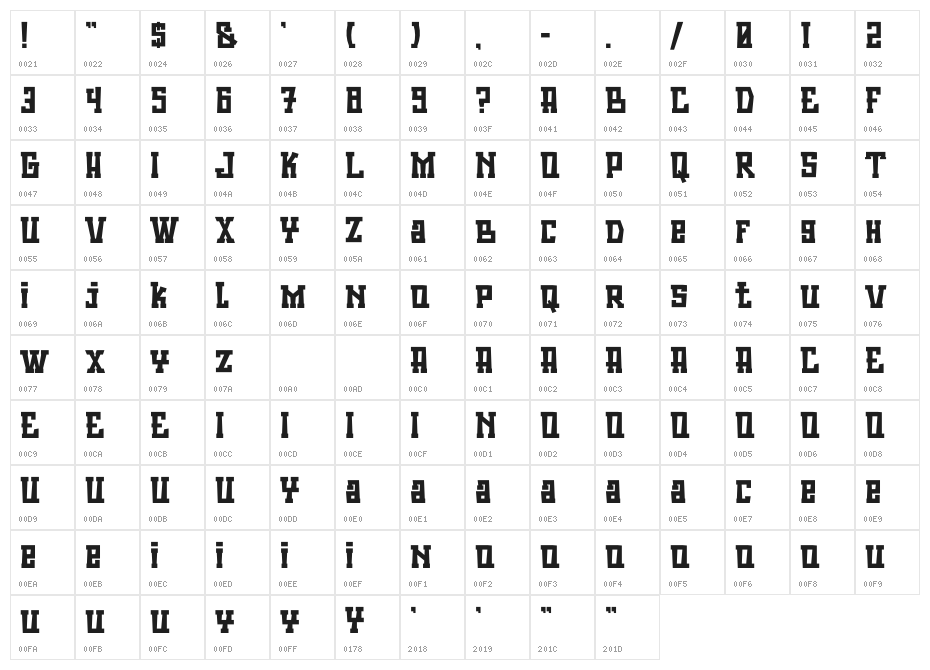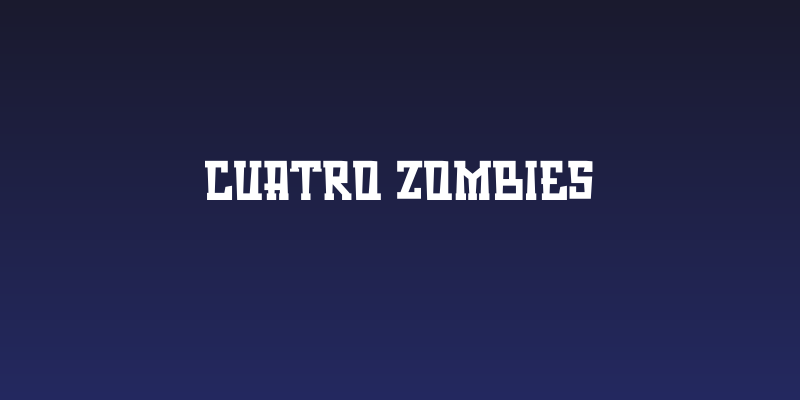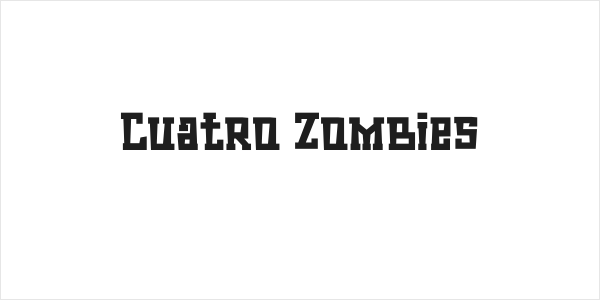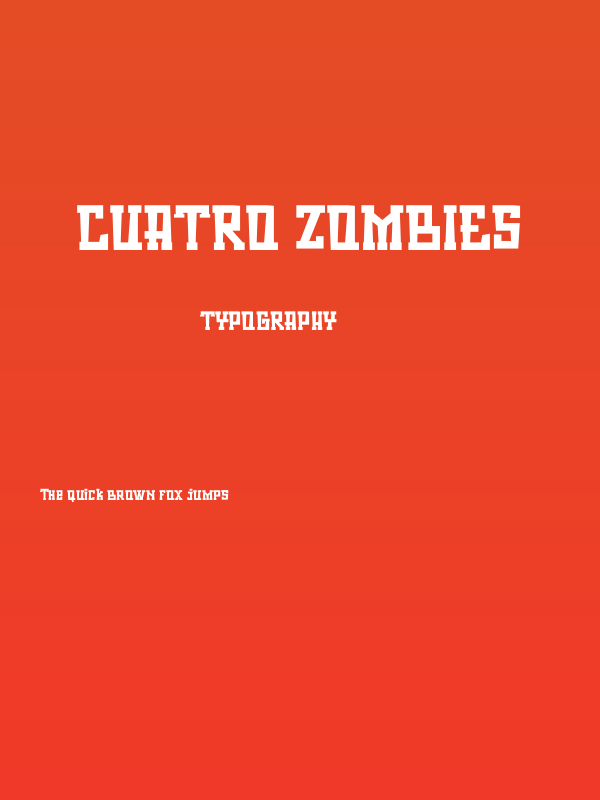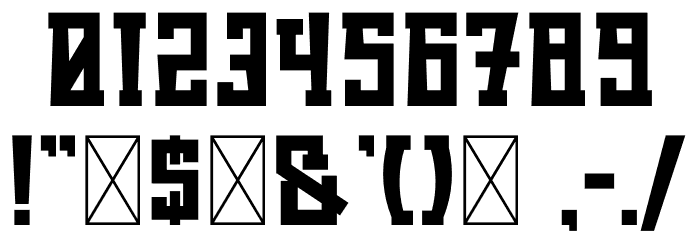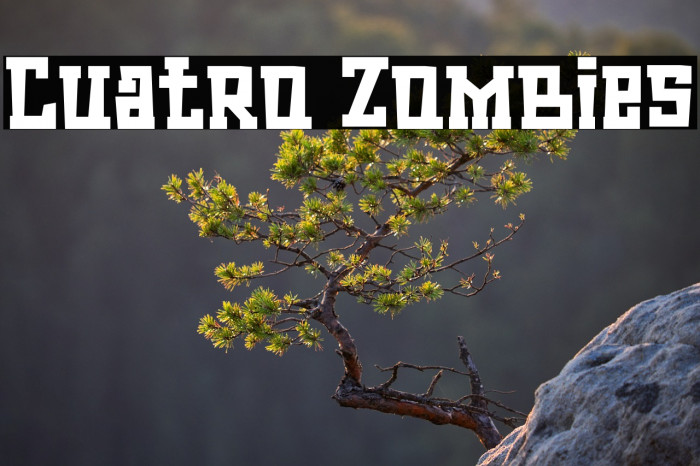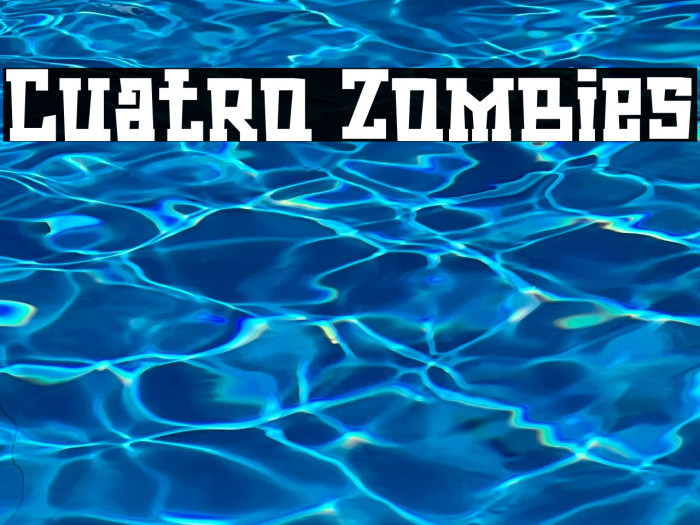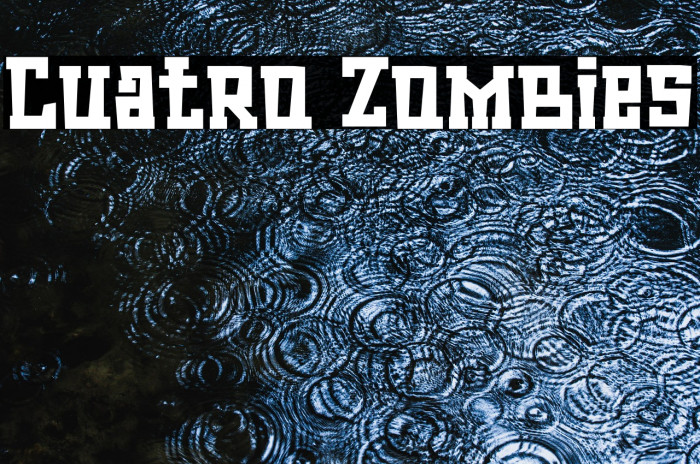
Cuatro Zombies Font
Cuatro Zombies Description
This font features a bold and striking design with a distinctly angular and geometric style. The characters are crafted with sharp edges and thick strokes, giving it a strong and impactful presence. The uppercase and lowercase letters maintain a consistent height, while the numbers and special characters follow the same bold aesthetic. The overall design is reminiscent of a modern, industrial look, making it suitable for attention-grabbing headlines and titles. The font's unique style is further emphasized by its high contrast between the thick and thin elements, adding to its dramatic appearance.
| Overall Style | Modern, Industrial |
| Proposed Projects | Ideal for posters, logos, video game graphics, and any project requiring a bold, impactful typeface. |